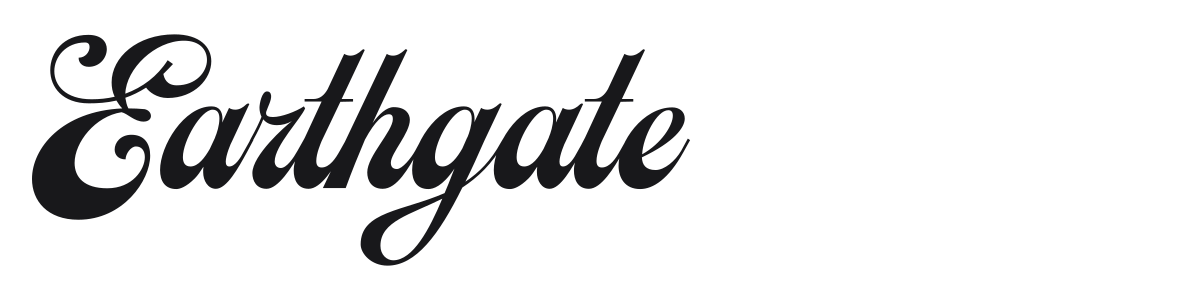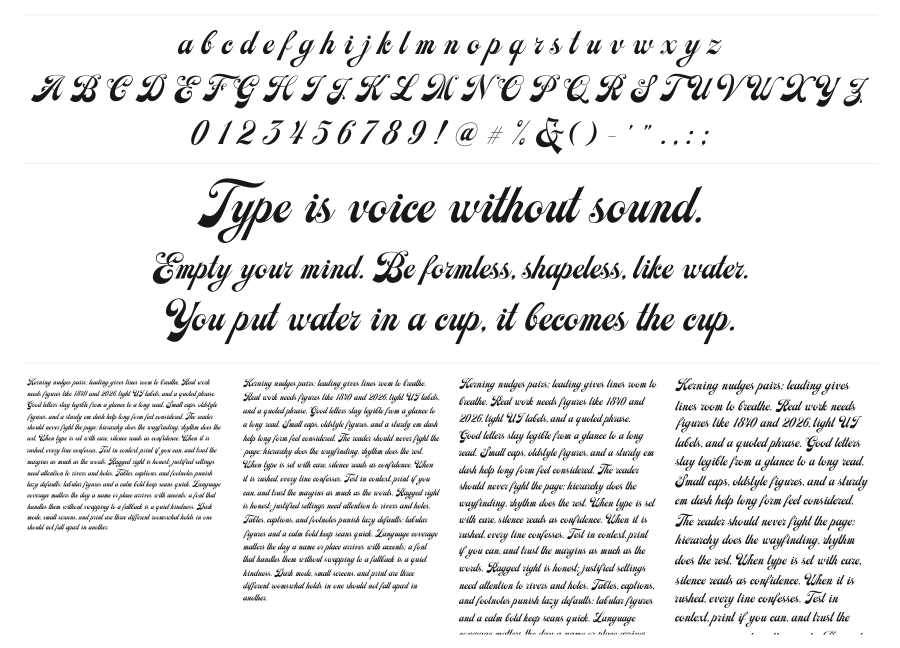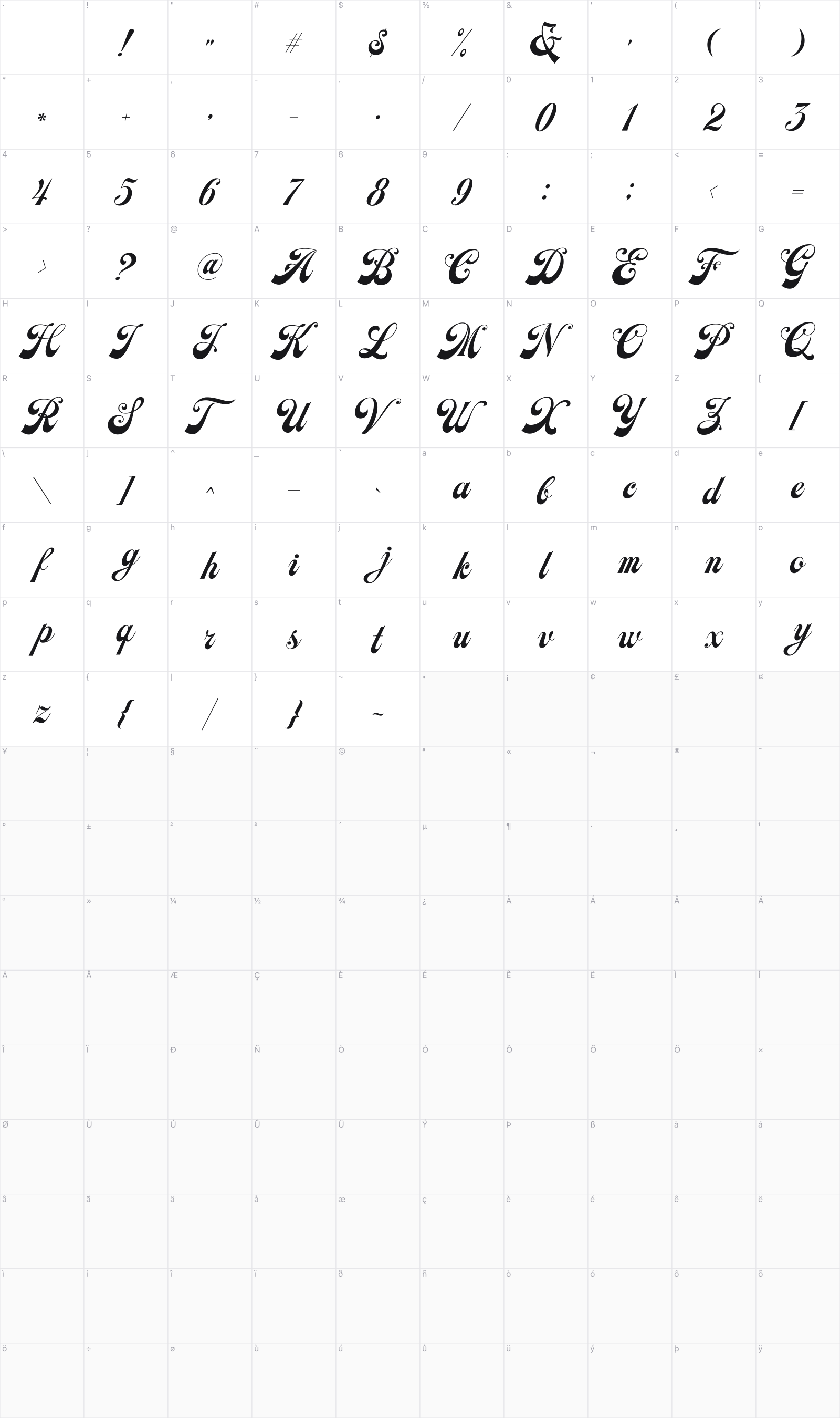
Earthgate
Earthgate is a bold formal script with dramatic stroke contrast and sweeping calligraphic energy. The generous loops and fluid connections between characters give it an expressive, confident rhythm that reads well at large sizes. It draws on copperplate tradition but carries enough weight and personality for modern branding and editorial work.